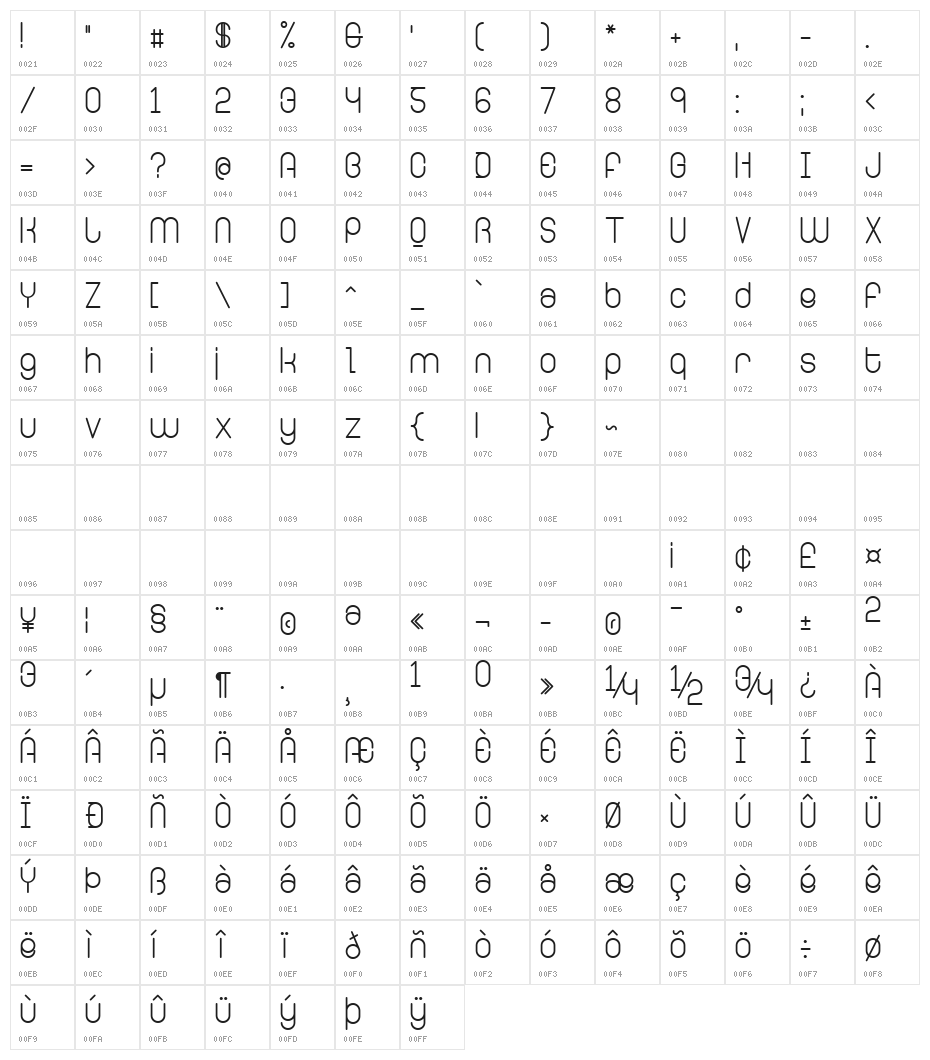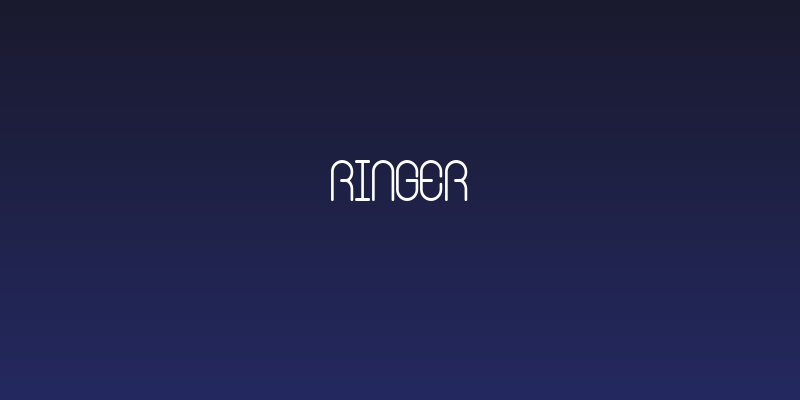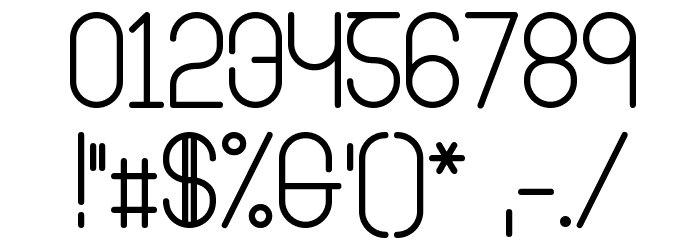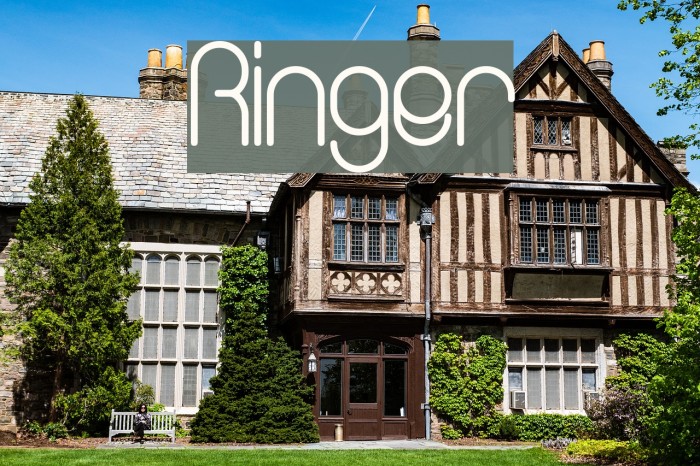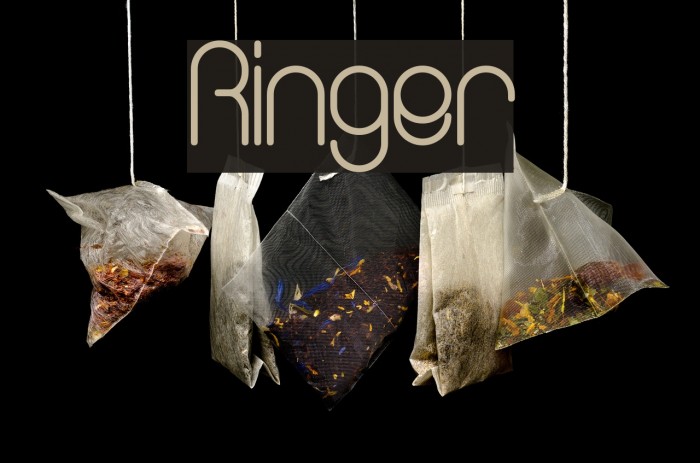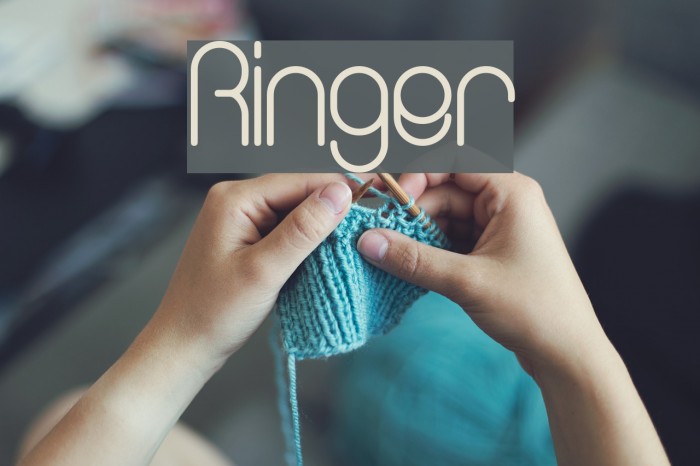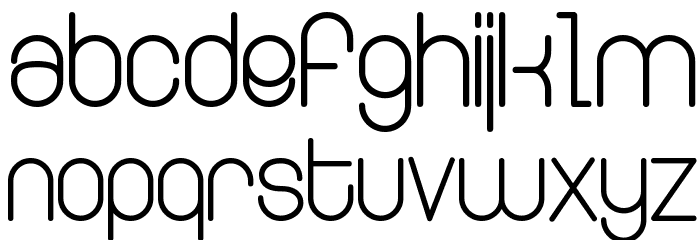
Ringer Font
Ringer Description
This font features a modern and sleek design with a geometric and rounded aesthetic. The characters are constructed with consistent line thickness, giving it a uniform appearance. The uppercase and lowercase letters share a similar structure, enhancing readability while maintaining a distinct style. The numerals and special characters are designed to complement the alphabet, ensuring a cohesive look across all text. This font's clean lines and contemporary feel make it suitable for a variety of design projects.
| Proposed Projects | Ideal for branding, digital interfaces, and modern print materials. |